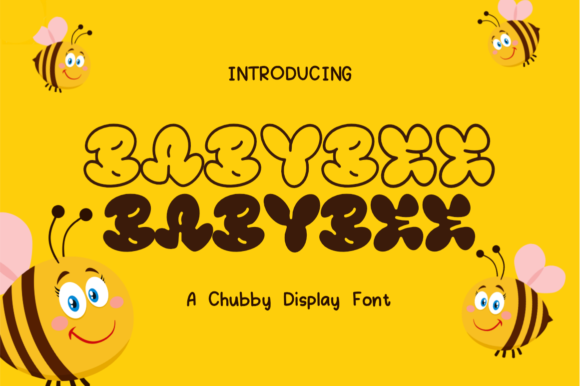
Journey into the world of Babybee Font, a delightful display font that captivates hearts with its charmingly plump curves and exceptional uniqueness. Dive into a world of boundless creativity, where Babybee transforms your designs into captivating masterpieces.
Indulge in the versatility of Babybee, a font that seamlessly adapts to any creative endeavor. Whether you're crafting heartfelt greeting cards, designing eye-catching digital content, delivering impactful presentations, or embarking on enchanting crafting projects, Babybee is your trusted companion.
Let Babybee's playful personality shine through in your designs, evoking a sense of joy and wonder in every beholder. Its chubby letters dance across the page, inviting smiles and capturing attention effortlessly. Unleash the power of Babybee and witness the transformation of ordinary designs into extraordinary visual feasts.
Experience the ease and delight of using Babybee, a font crafted with meticulous attention to detail. Its smooth flow and effortless readability make it a pleasure to work with, ensuring a seamless creative process. Say goodbye to frustration and hello to a world of creative freedom, where Babybee empowers you to bring your design visions to life with unparalleled grace.
Embrace the charm of Babybee, a font that sparks creativity and ignites imagination. Its playful spirit invites you to explore uncharted creative territories, pushing the boundaries of your design prowess. Discover a font that not only enhances your work but also fuels your passion for visual storytelling.
With Babybee as your creative ally, unlock a world of endless possibilities. Its versatility and captivating aesthetics make it the perfect choice for designers of all skill levels, from seasoned professionals to budding enthusiasts. Embark on a creative journey like never before, where Babybee becomes your trusted guide, leading you to new heights of design excellence.